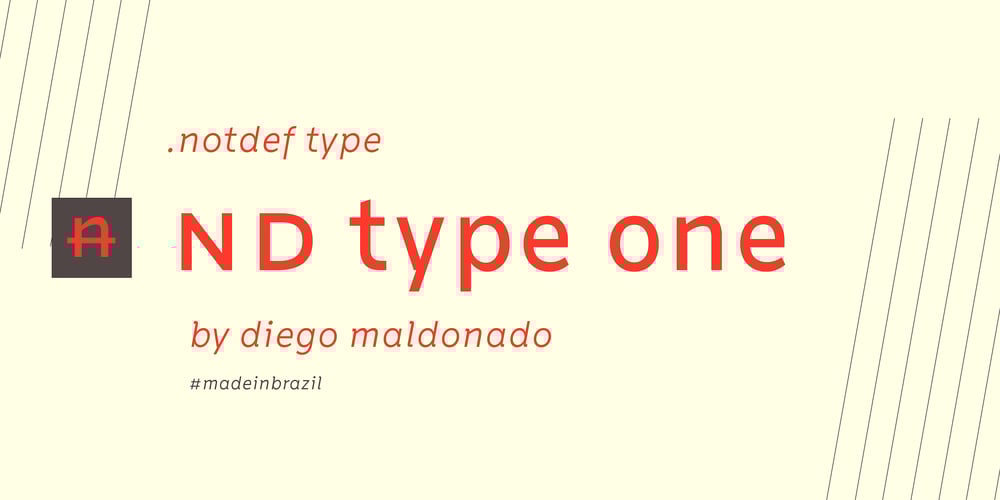
Nd Type One
Nd Type One font
Nd Type One Font Family was designed by Diego Maldonado and published by Notdef Type. Nd Type One contains 1 styles and family package options. ND Type One is a sans family great for use at small sizes. It works perfectly at mobile interfaces. With a wide latin set that support more than 200 languages, ND Type One can communicate with a lot of people. It also has small caps, tabular numbers, fractions and alternate characters.